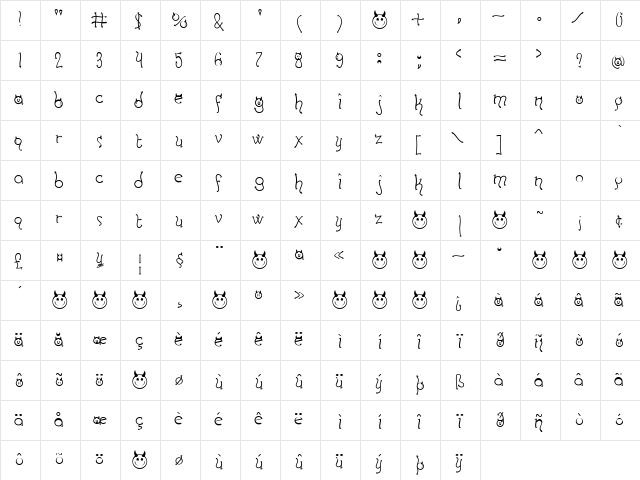
Horny Devils BV Regular
Design Context for Horny Devils BV Typeface
Horny Devils BV is a composed and adaptable typeface that performs quietly and consistently across a wide range of design contexts.